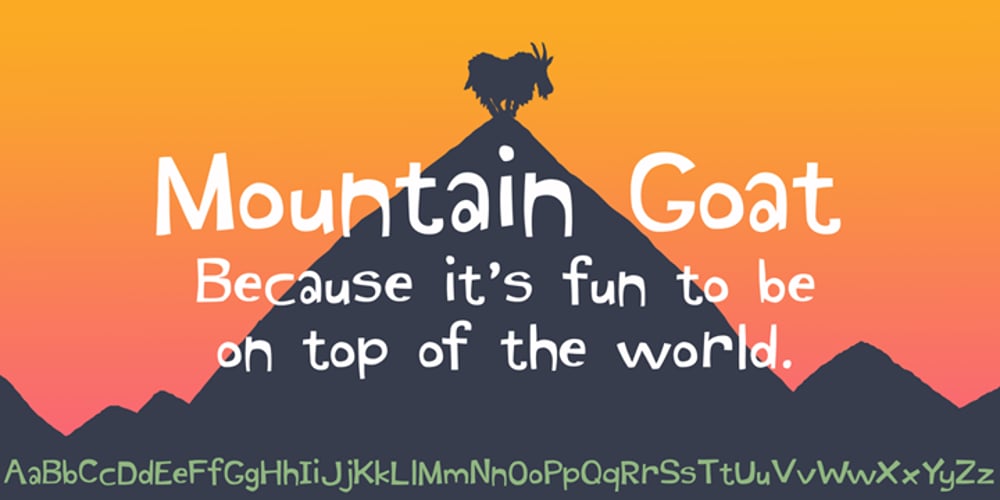
Mountain Goat Font Family was designed by Ken Russell and published by Atlantic Fonts. Mountain Goat contains 1 styles and family package options. Mountain Goat is friendly, but likes to live on the edge. Undaunted by difficult terrain, this goat can do things you never dreamed of… P.S. Mountain Goat is never sheepish.